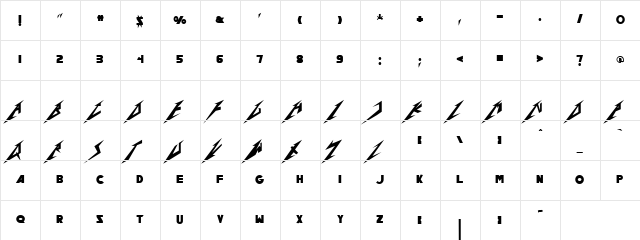
Pastor of Muppets Normal Free Font
Pastor of Muppets Normal
Design Context for Pastor of Muppets
Pastor of Muppets is a composed and adaptable typeface that performs quietly and consistently across a wide range of design contexts.
Pro Tip: Use Pastor of Muppets in both headline and body roles to test its range before committing to a single application.